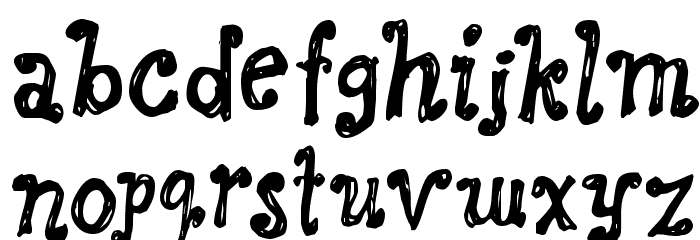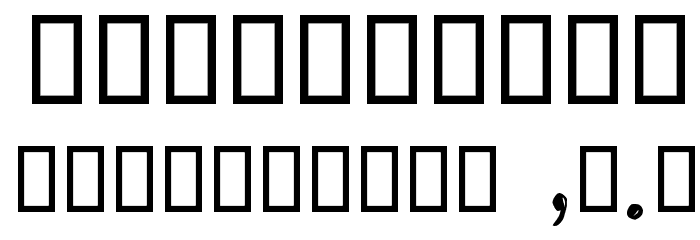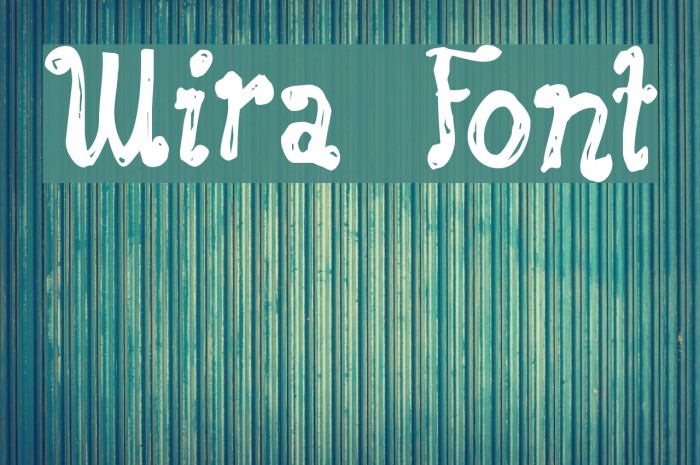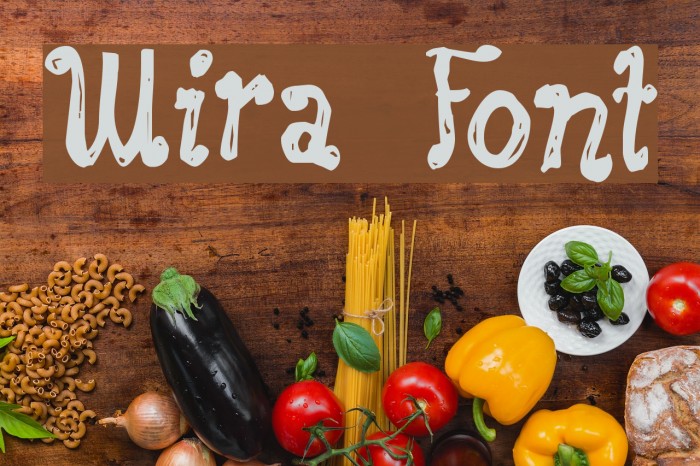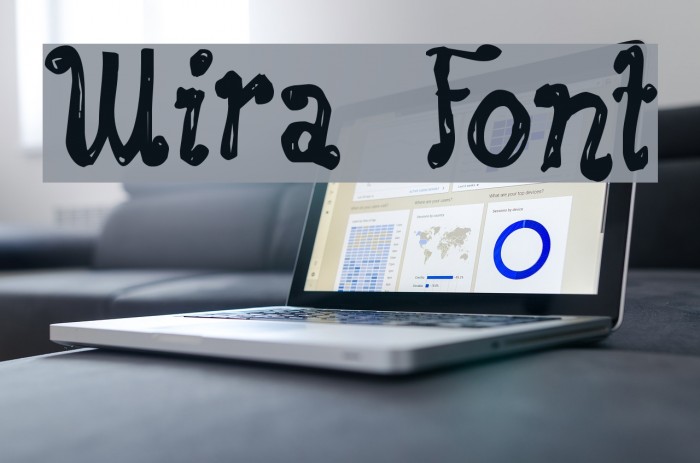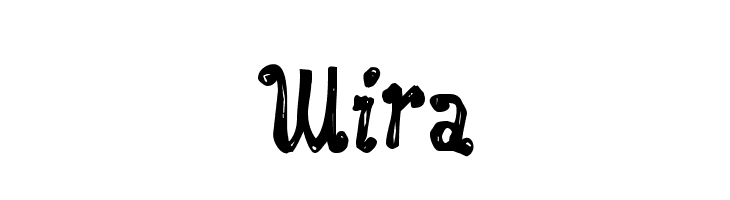
Wira Font
This font exhibits a playful and decorative style, characterized by its bold, whimsical strokes and unique embellishments. Each letter features a distinct, hand-drawn appearance with uneven lines and playful curls, giving it a lively and artistic feel. The uppercase letters are particularly bold and pronounced, while the lowercase letters maintain a consistent style with slightly more subtle curves. The font's overall design is reminiscent of a handcrafted, artistic script, making it ideal for creative and informal applications. Its bold nature ensures high visibility, while the decorative elements add a touch of charm and personality.
A bold, playful, and decorative font with whimsical, hand-drawn strokes.
- Proposed Projects: Ideal for creative projects such as greeting cards, posters, children's books, and playful branding.
- Use Case: Headlines, Logos, Creative projects